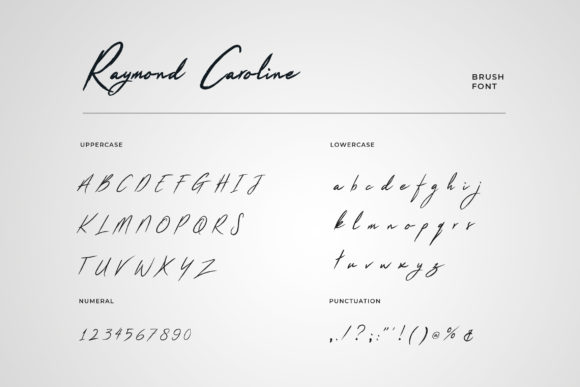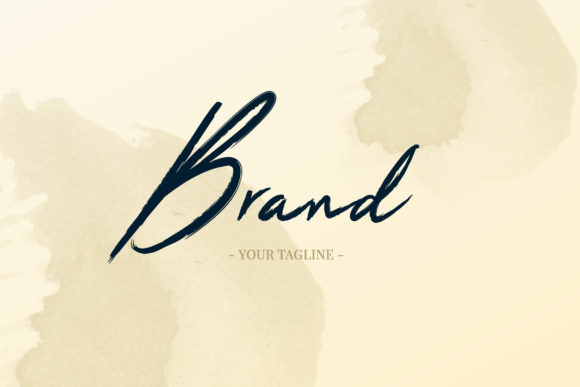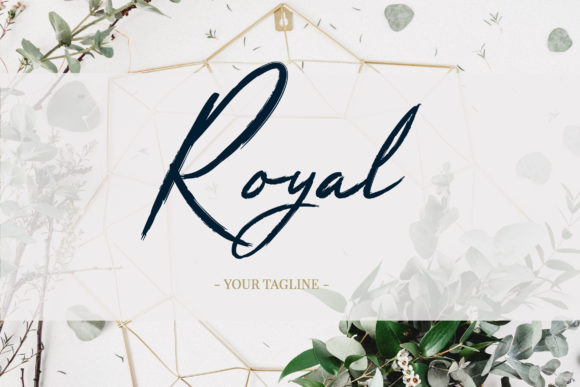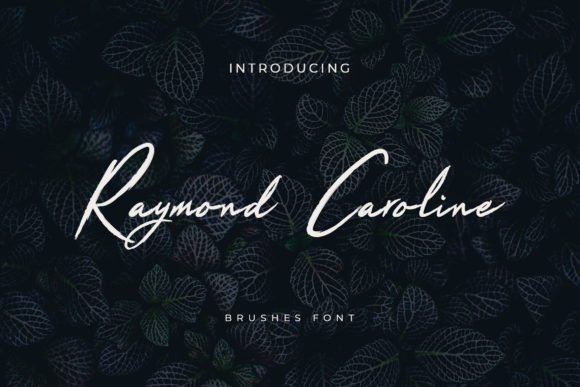
Introduction to Raymond Caroline Font
Raymond Caroline is a modern script font that is readable, brushed and stylish.
It is defined by smooth curves and is perfect for fashion branding or editorial designs Add it confidently to your projects, and you will love the results.
Raymond Caroline Font offers exceptional quality and versatility, making it a valuable addition to your design toolkit. Whether you’re creating for personal projects or commercial use, Raymond Caroline Font delivers professional results.